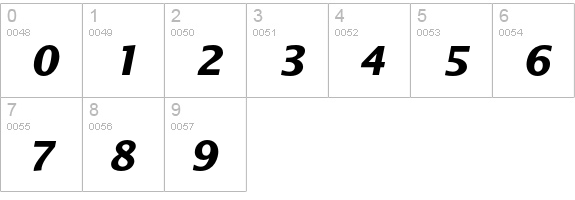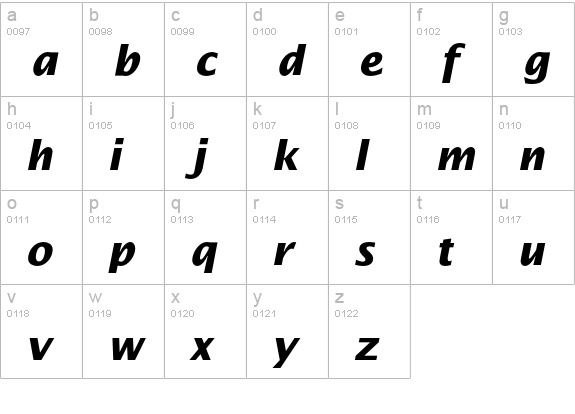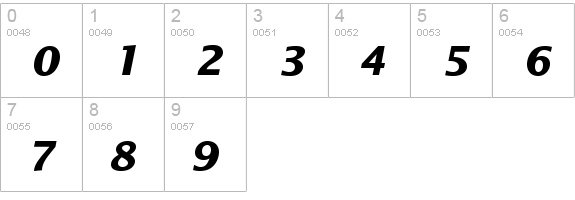
Lucida Sans Bold Italic is a strong, high-contrast, italic variant in the Lucida typeface family \xE2\x80\x94 well suited to headlines, attention-grabbing titles, and strong calls-to-action.
Lucida Sans Bold Italic is a striking and dynamic font that combines the boldness of the weight with the elegance of the italic style. Its modern and sleek design makes it perfect for adding emphasis and sophistication to any project. The strong, slanted characters exude confidence and style, making it a versatile choice for headlines, titles, and branding materials. And the best part? Lucida Sans Bold Italic is available for free download at FontsMarket.com! This means you can easily access this beautiful font to enhance your designs without any cost. Don't miss out on the opportunity to elevate your projects with the bold and italic charm of Lucida Sans. Download it now and start creating stunning visuals that stand out from the rest.